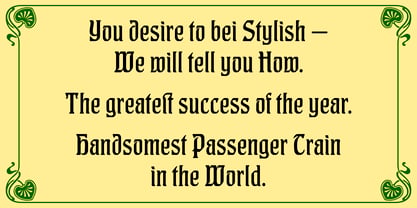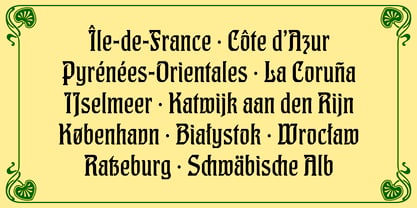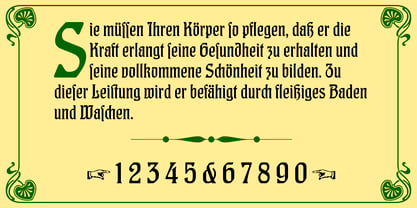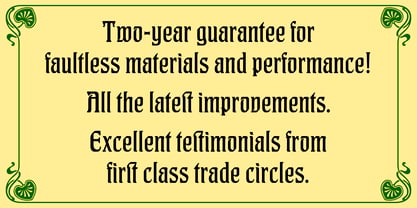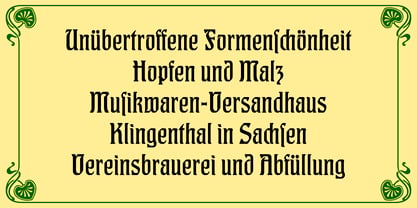
RMU Suebia™
The RMU Suebia Font Family was designed by Ralph M. Unger and published by RMU. RMU Suebia contains 1 styles. More about this family
In 1902 Bauersche Giesserei released its Art Nouveau font Hohenzollern. This font was redrawn and redesigned for modern use. The letter d received an updated counterpart. The original d you find on the partialdiff key ∂ or you change the modern d by the OT feature stylistic alternative. The long s lies on the integral key ∫ or you turn the round s into the long one by using the before-mentioned OT feature. The font contains some ligatures, standard as well as discretionary. So it is recommended to activate the discretionary ligature OT feature too.